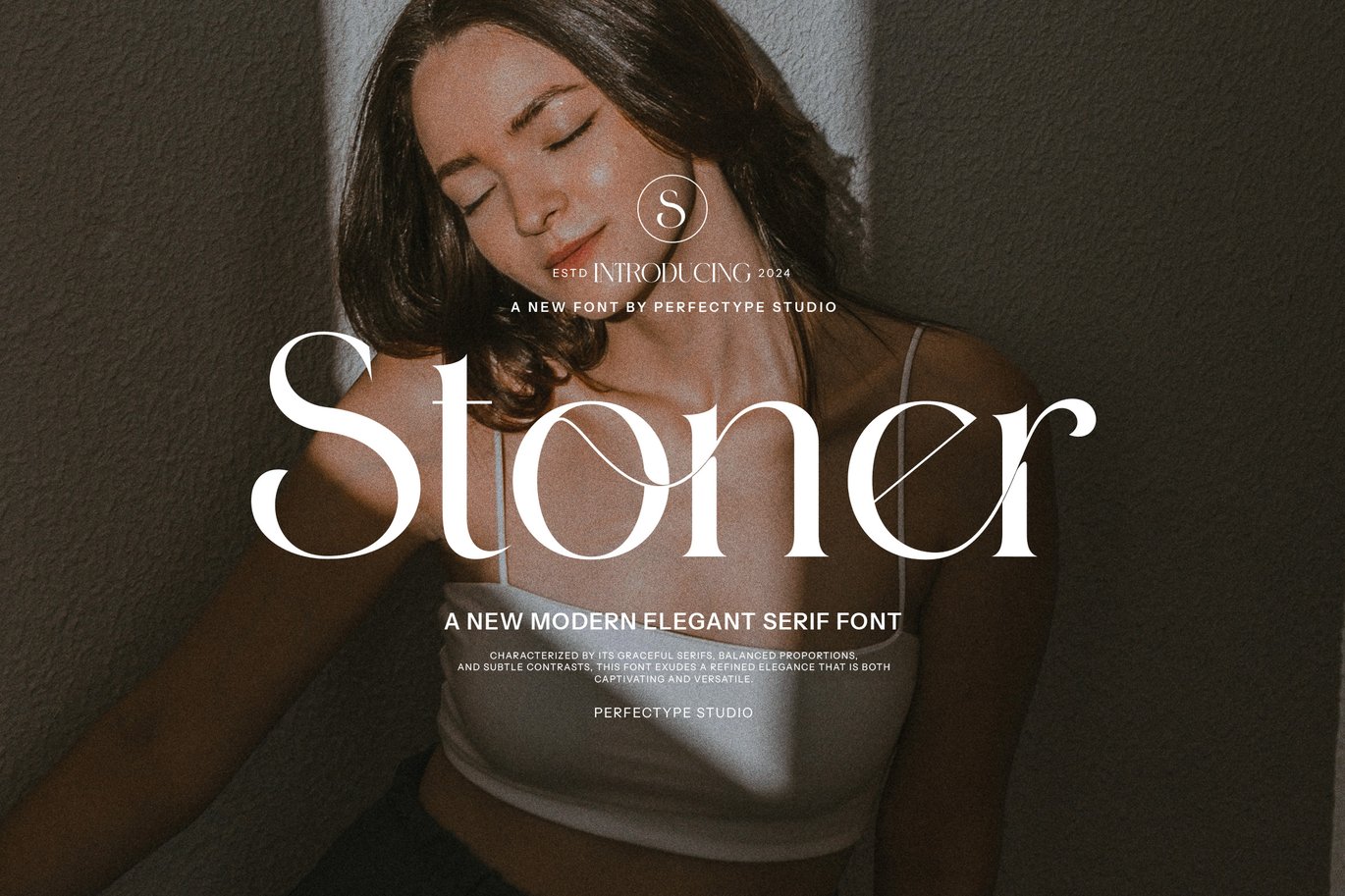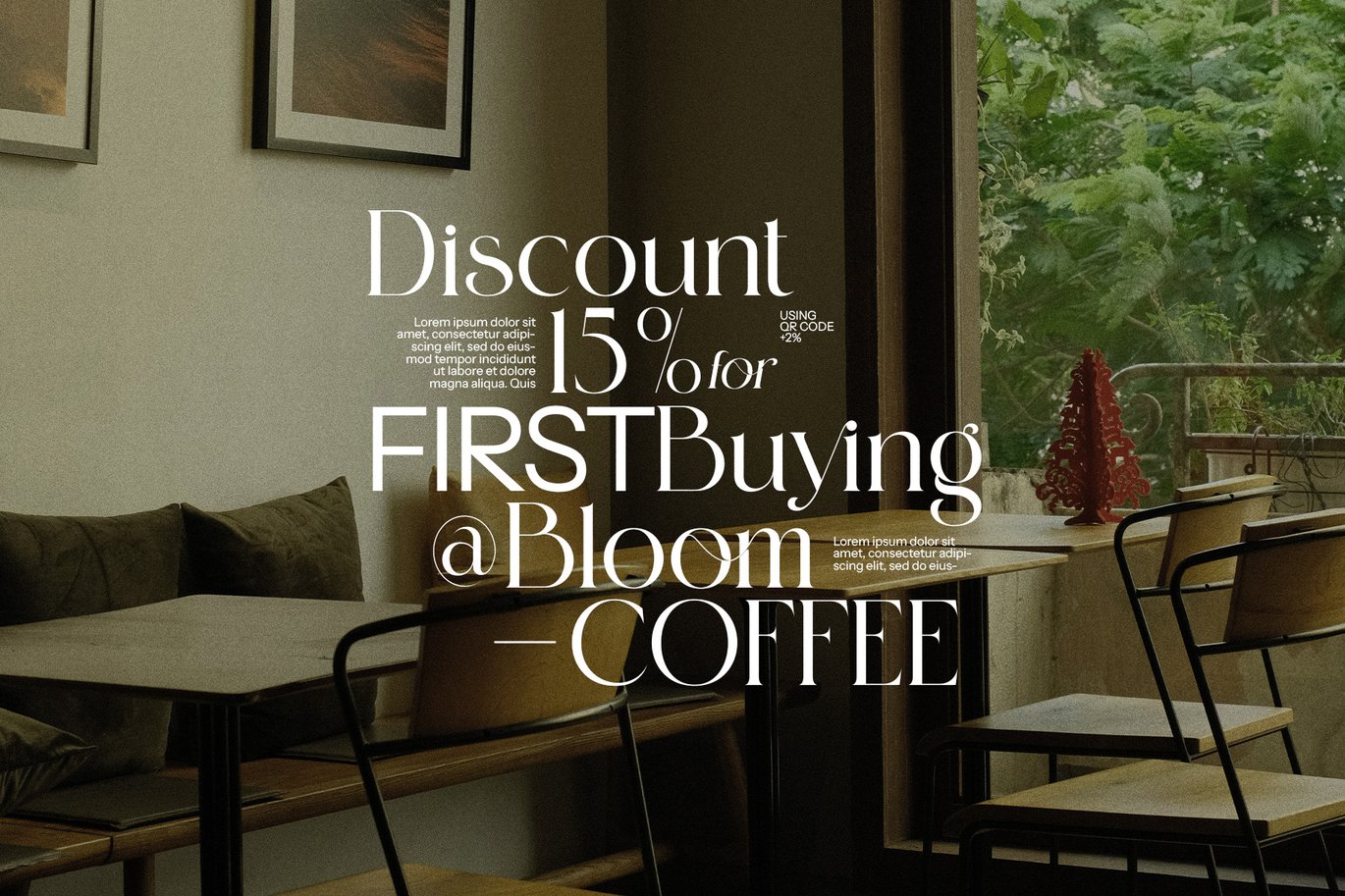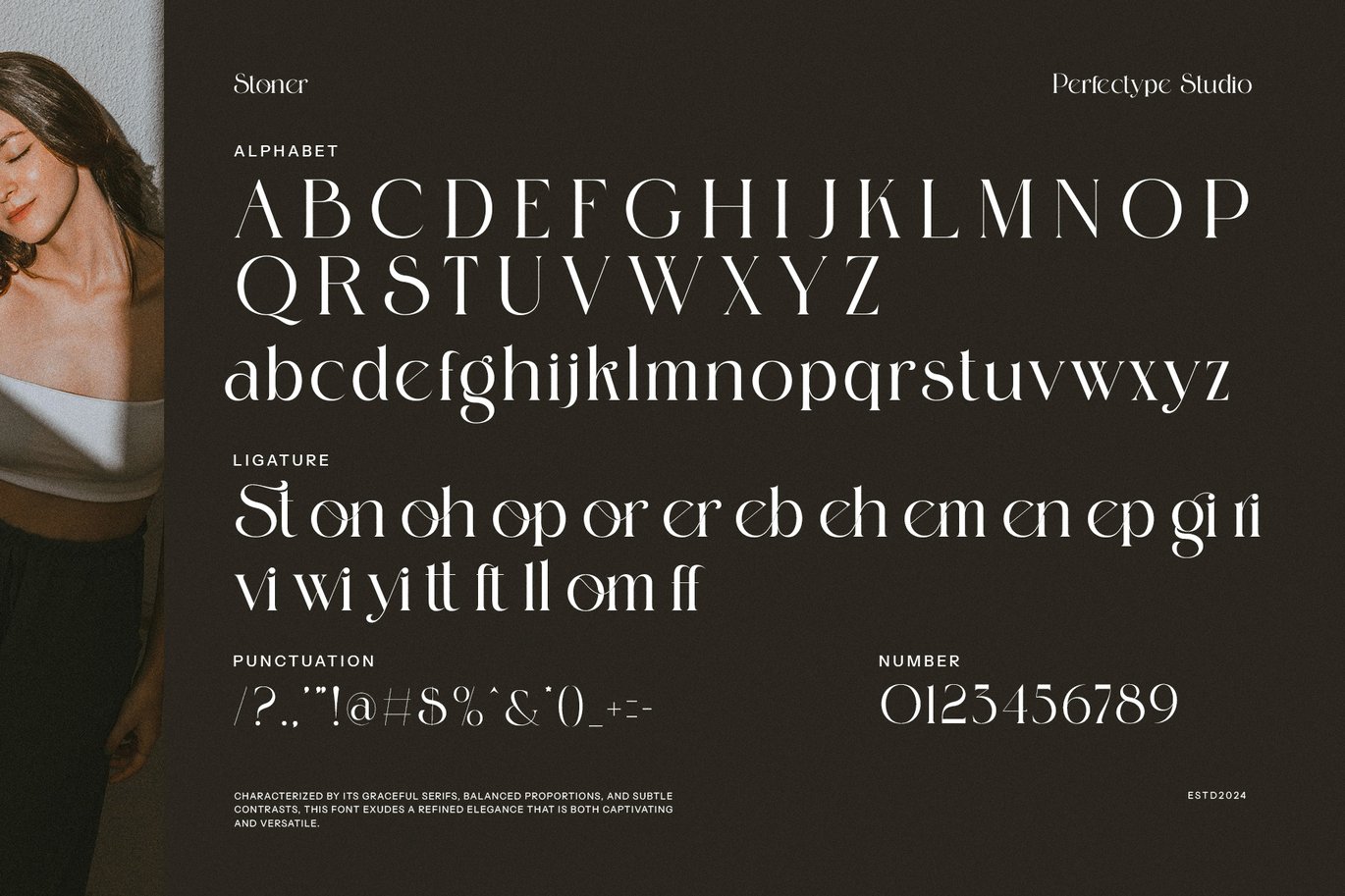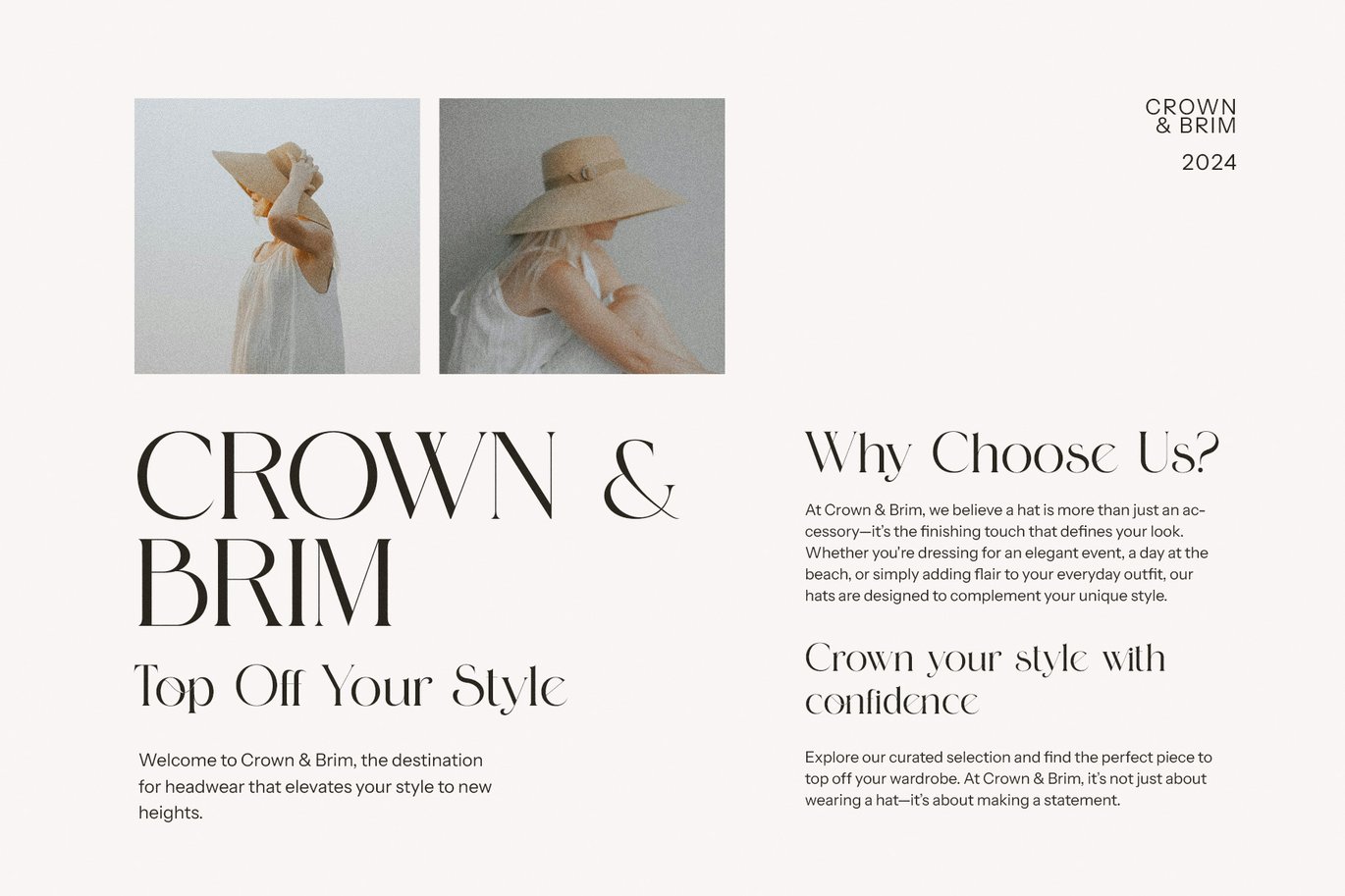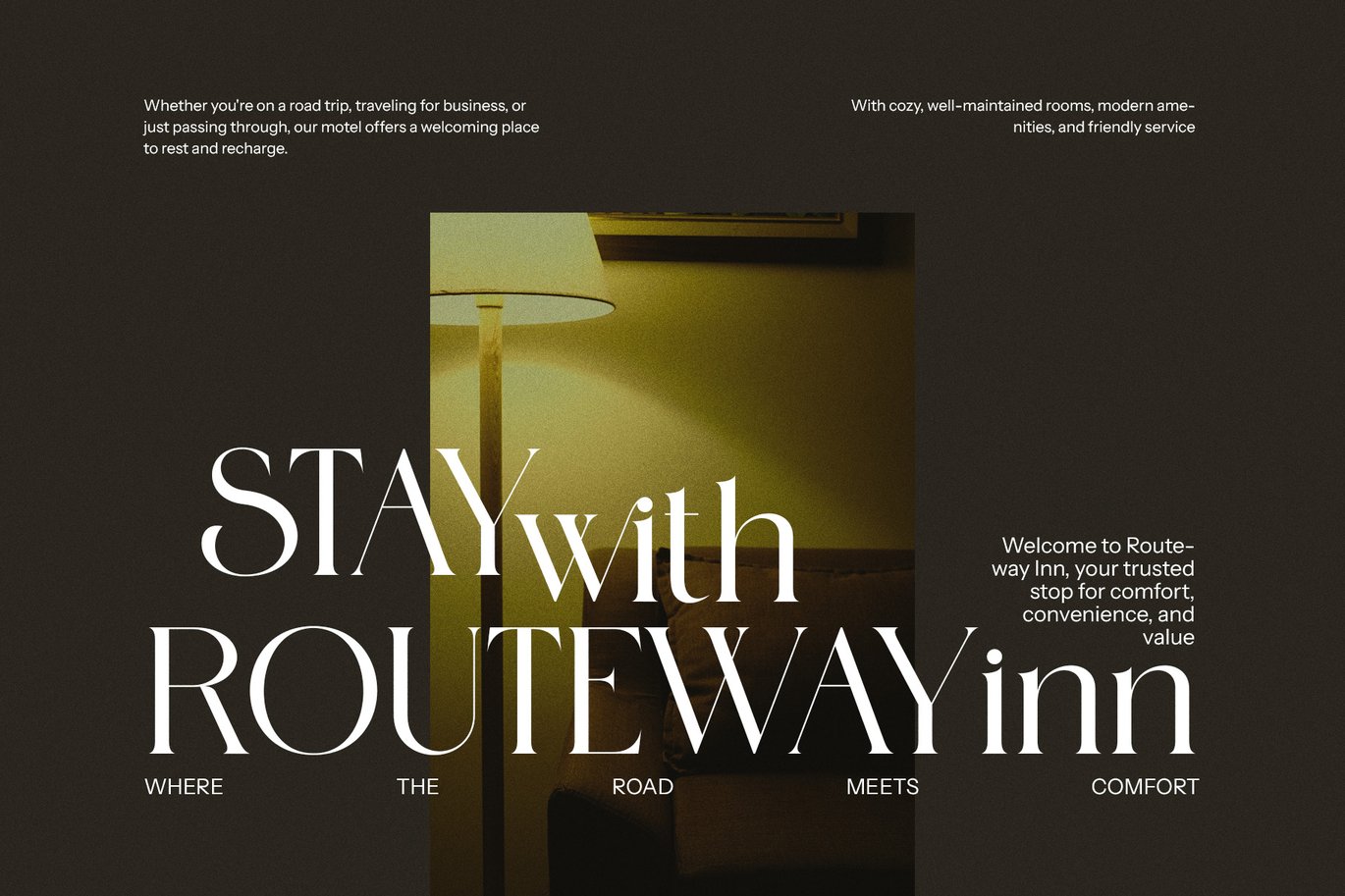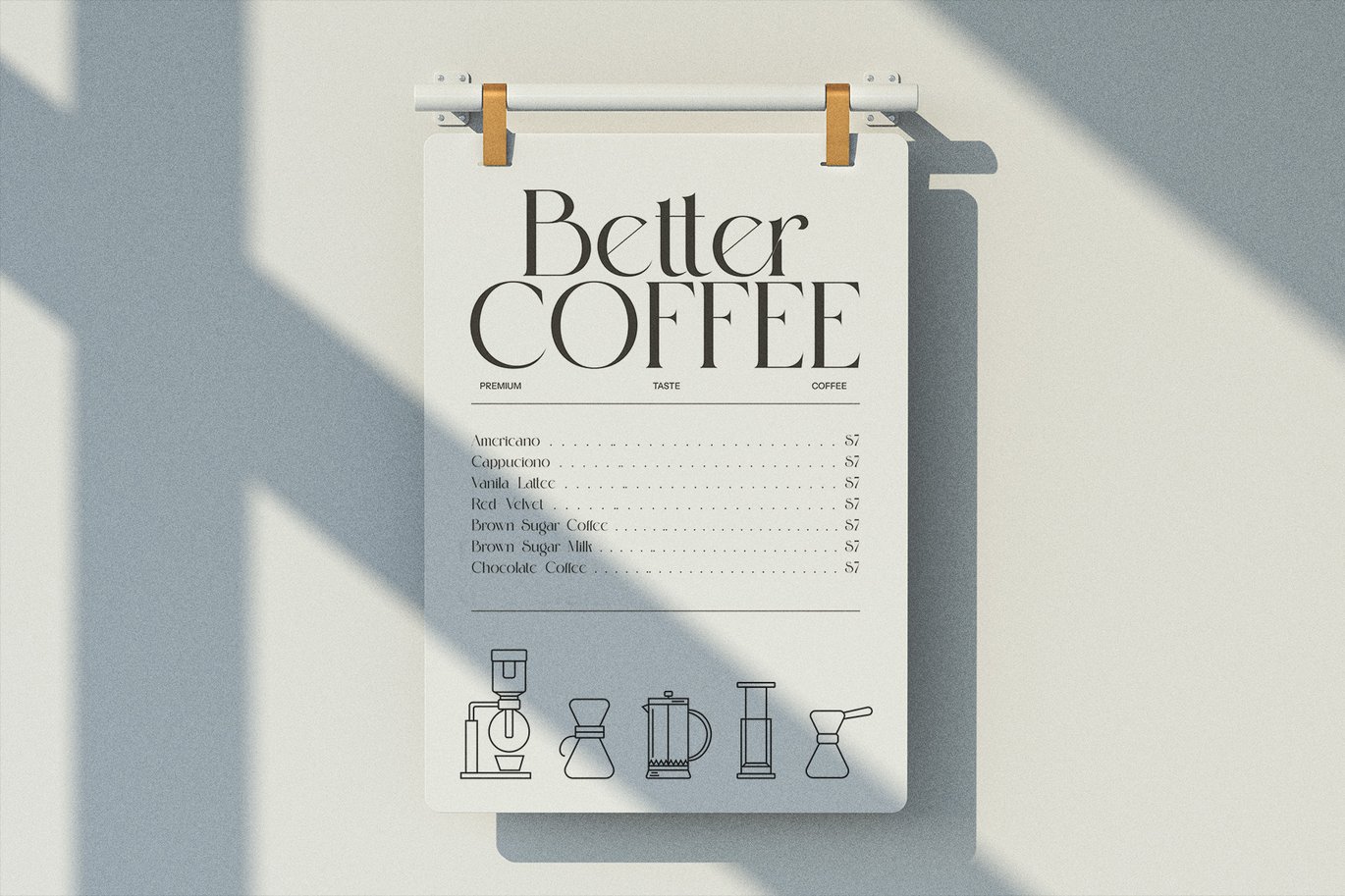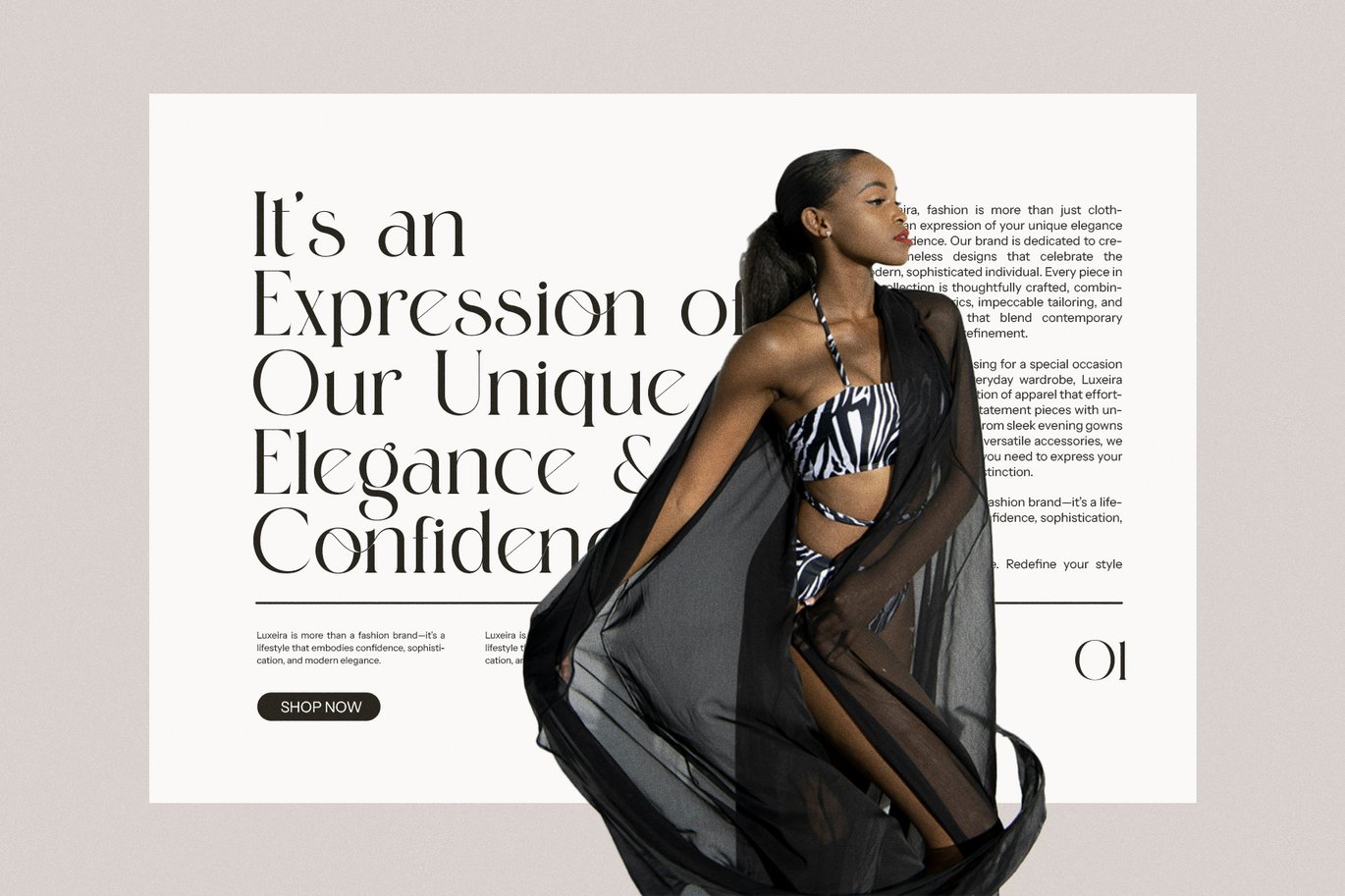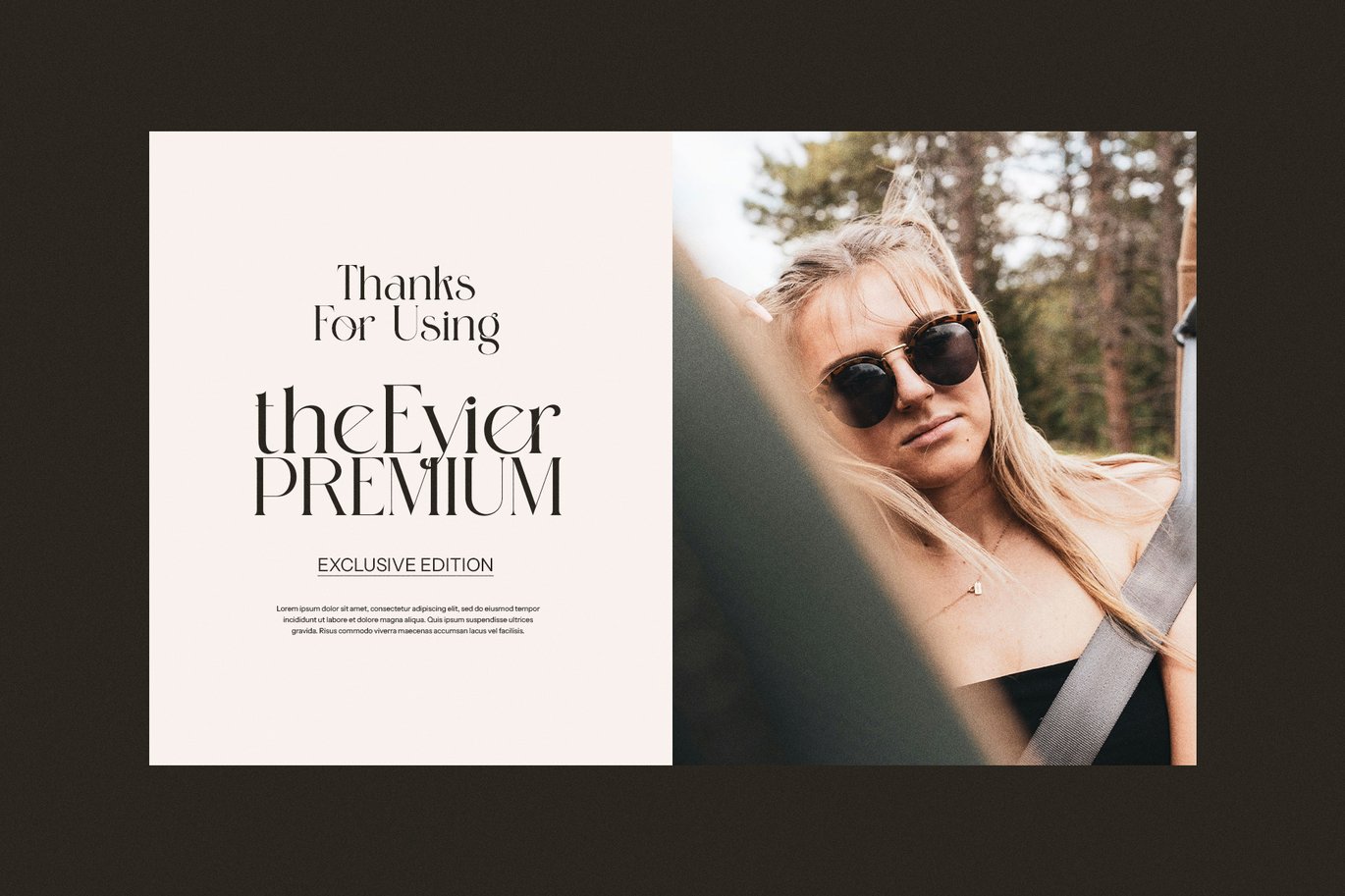
Stoner Modern Serif Font
Stoner Modern Serif is a sophisticated and versatile typeface that blends contemporary design with timeless appeal. Featuring clean lines, sharp details, and a balanced geometric structure, this font is designed to bring a refined yet modern touch to any project. Whether used in corporate branding, sleek advertising, or high-end editorial layouts, Stoner delivers a professional and stylish aesthetic that stands out effortlessly.
Perfectly suited for both digital and print applications, Stoner adapts seamlessly to a variety of creative needs. Its structured letterforms make it an excellent choice for logos, magazines, esports branding, product packaging, and cutting-edge website designs. The well-proportioned characters ensure high readability, while the font’s subtle elegance adds a layer of sophistication to any text.
With its strong yet minimalist presence, Stoner is ideal for agencies, businesses, and designers looking to create a bold yet polished visual identity. Whether crafting modern brochures, engaging social media templates, or elegant invitations, this font offers flexibility and impact across different mediums.
For those who appreciate a modern serif with a touch of geometric precision, Stoner Modern Serif is a must-have. Elevate your designs with its sleek and contemporary feel, ensuring every word makes a lasting impression.